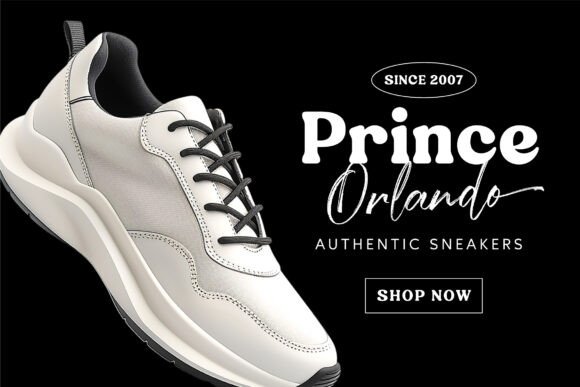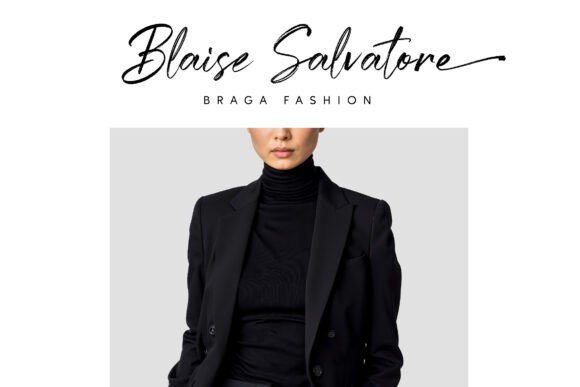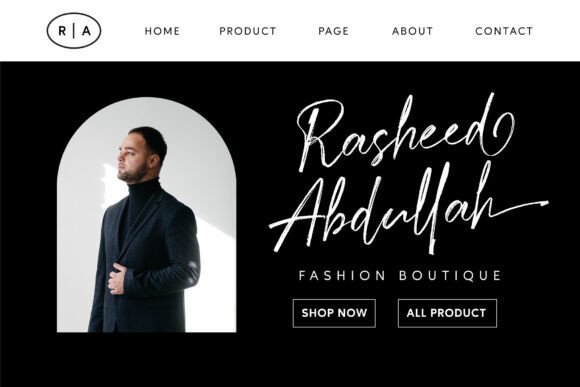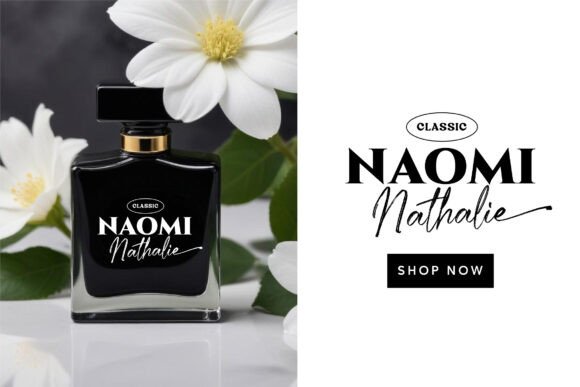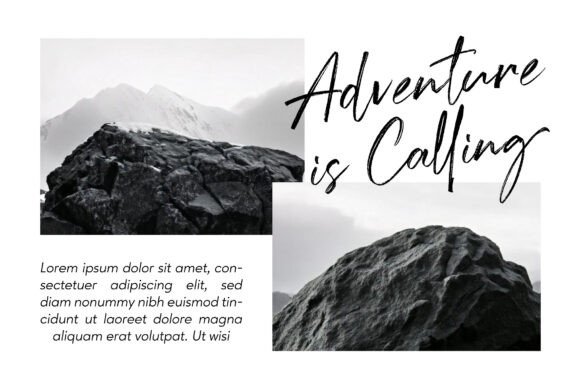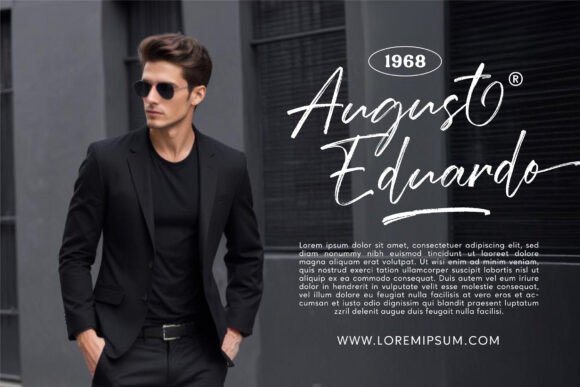
Astonilla Font: Unleash the Artist Within You
In the world of typography, few fonts manage to capture the essence of creativity and elegance as Astonilla does. This brush handwritten script font is a game-changer for designers, crafters, and anyone looking to add a personal touch to their projects. With Astonilla, you can unleash the artist within you and let your words come alive in a way that’s both authentic and captivating.
The Perfect Blend of Elegance and Creativity
Astonilla is more than just a font; it’s an experience. It’s a perfect blend of elegance, creativity, and authenticity that allows you to express yourself freely. Whether you’re designing a stunning logo, crafting a heartfelt invitation, or creating eye-catching social media posts, Astonilla adds that special something that makes your work stand out. Its unique brush strokes and fluid letterforms give your text a handcrafted feel that’s impossible to replicate with standard fonts.
Bringing Your Ideas to Life
One of the most exciting things about Astonilla is its ability to bring your ideas to life. The font’s natural, hand-painted look adds a layer of depth and emotion to your words, making them more relatable and engaging. Whether you’re working on a creative project, a marketing campaign, or simply want to add some personality to your social media posts, Astonilla gives you the tools to make your message shine.
Astonilla is incredibly versatile, making it suitable for a wide range of design projects. Here are just a few ideas to get you started:
- Logos and Branding: Use Astonilla to create a unique and memorable logo that reflects your brand’s personality.
- Invitations and Stationery: Add a touch of elegance and sophistication to your invitations, greeting cards, and stationery.
- Social Media Graphics: Make your social media posts stand out with Astonilla’s eye-catching letterforms and natural look.
- Packaging and Labels: Give your products a personal touch with custom packaging and labels that showcase your brand’s personality.
Why Choose Astonilla?
With so many fonts available, why choose Astonilla? Here are just a few reasons why designers and crafters love this brush handwritten script font:
- Unique and Authentic: Astonilla’s natural, hand-painted look sets it apart from standard fonts and adds a personal touch to your designs.
- Elegant and Sophisticated: The font’s fluid letterforms and elegant strokes make it perfect for projects that require a touch of sophistication.
- Easy to Use: Astonilla is incredibly easy to use, making it accessible to designers and crafters of all skill levels.
- Highly Versatile: Whether you’re working on a logo, invitation, or social media post, Astonilla is suitable for a wide range of design projects.
Tips for Using Astonilla
To get the most out of Astonilla, here are a few tips to keep in mind:
- Experiment with Colors: Astonilla looks great in a variety of colors, so don’t be afraid to experiment and find the perfect hue for your design.
- Play with Ligatures: The font’s ligatures add a touch of elegance and sophistication to your text, so be sure to use them to create a natural flow.
- Mix and Match: Combine Astonilla with other fonts to create a unique and eye-catching design that showcases your creativity.
Astonilla is more than just a font; it’s a tool for creativity and self-expression. With its unique brush strokes, elegant letterforms, and highly versatile design, Astonilla is the perfect choice for designers and crafters looking to add a personal touch to their projects. Whether you’re creating a stunning logo, crafting a heartfelt invitation, or simply want to add some personality to your social media posts, Astonilla gives you the freedom to unleash the artist within you and let your words come alive.
So why wait? Dive into the world of creative typography with Astonilla and discover a new way to express yourself, one beautiful stroke at a time.